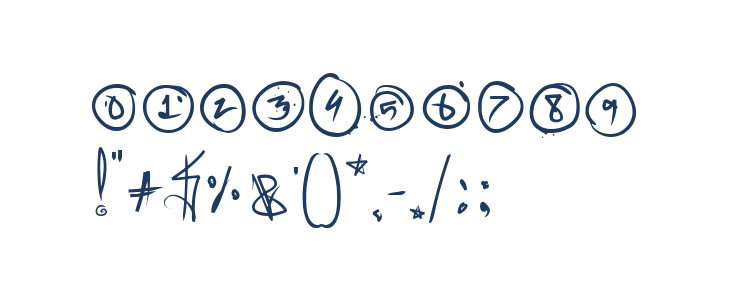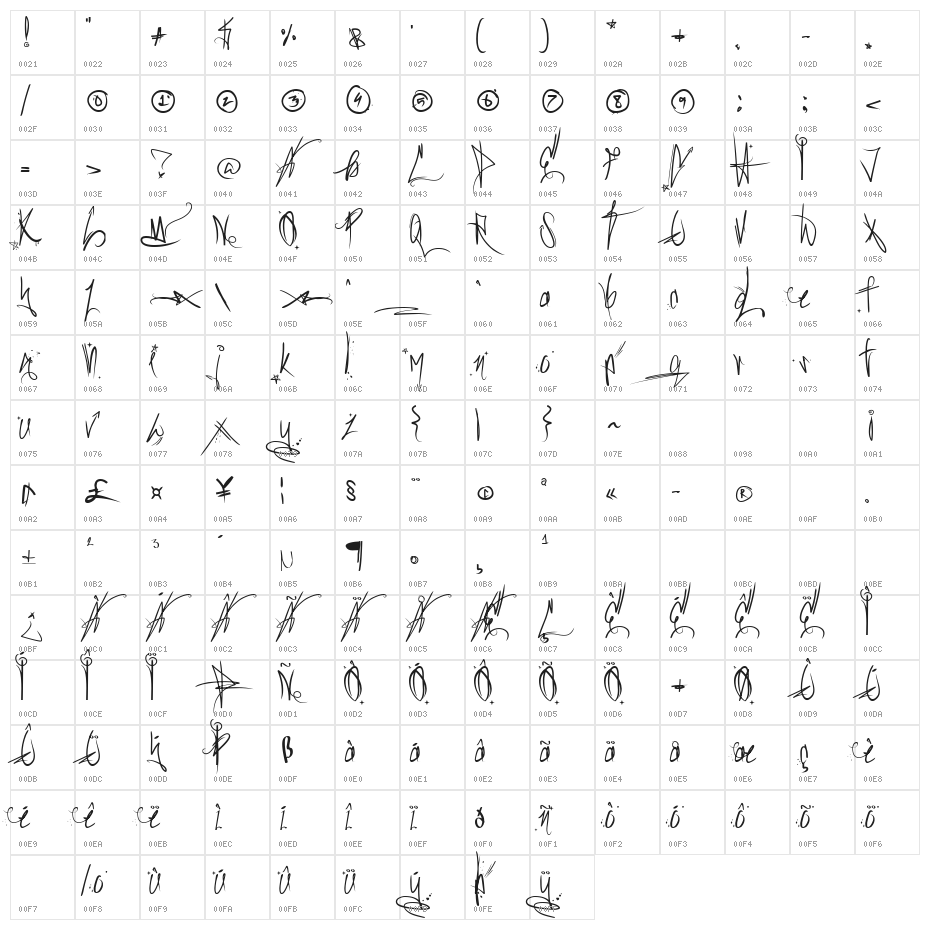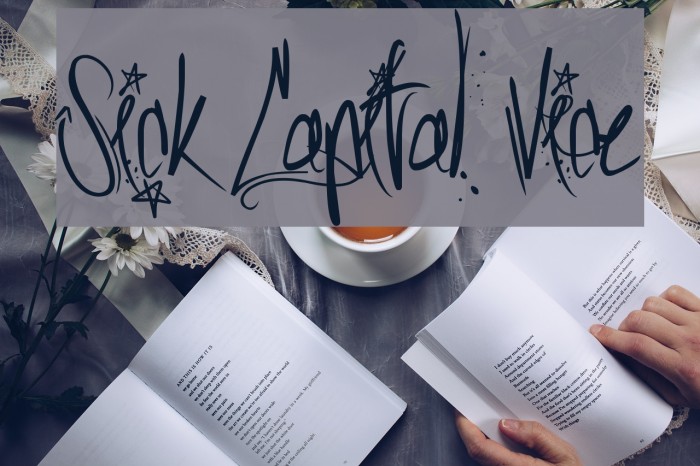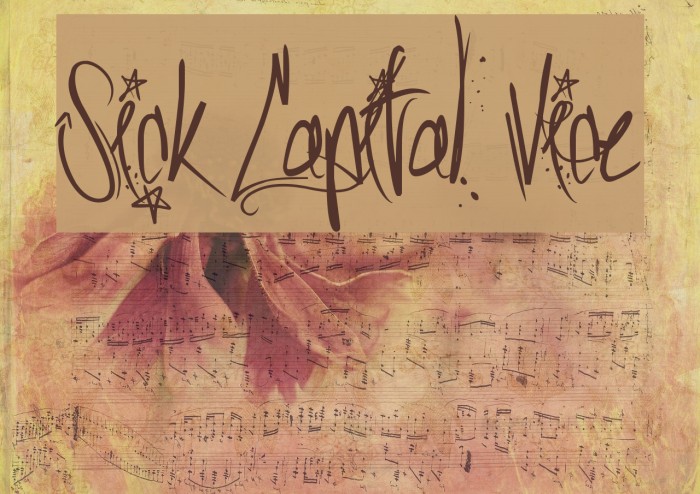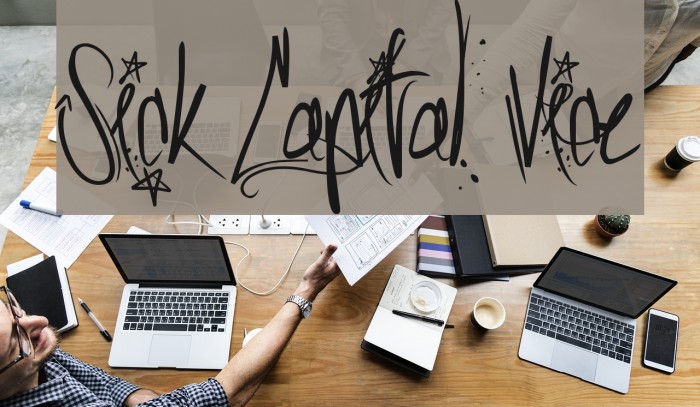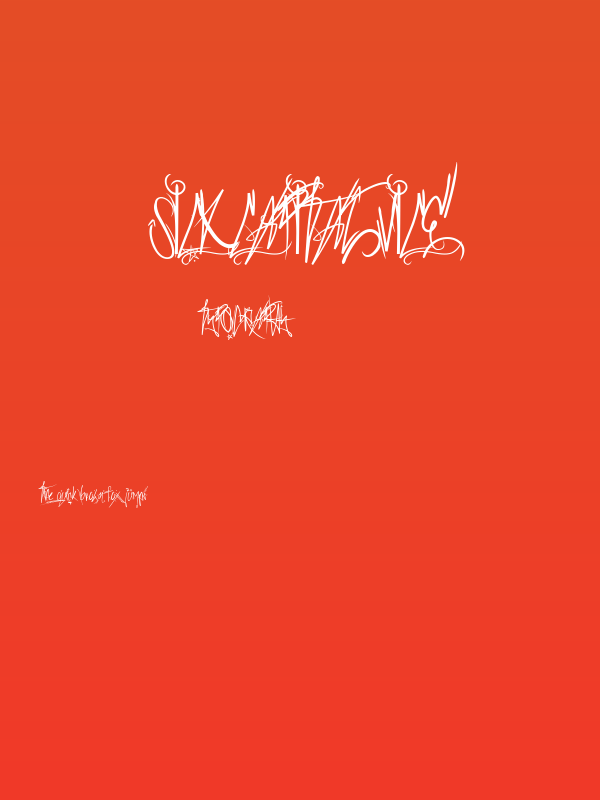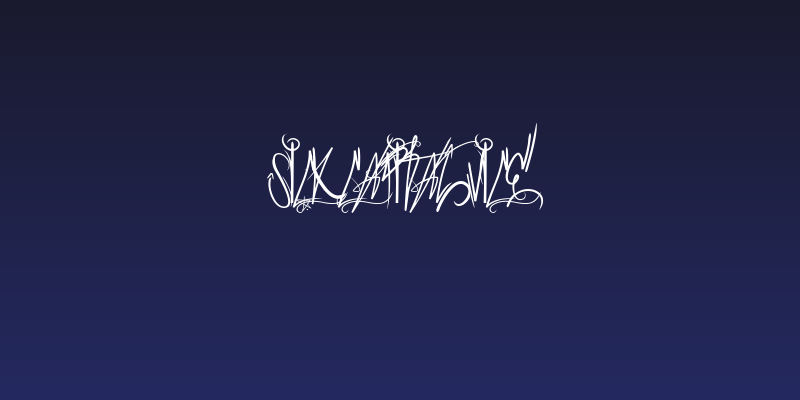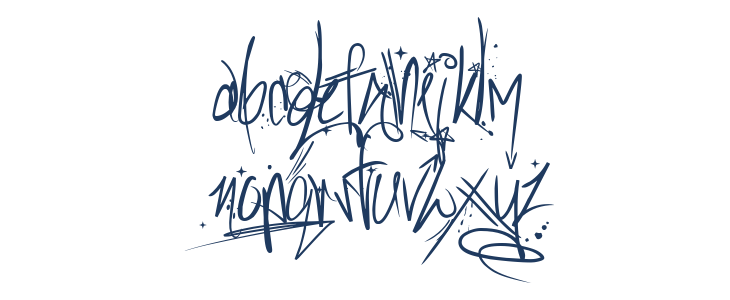
Sick Capital Vice Font
Sick Capital Vice Description
This font exudes an edgy, graffiti-inspired aesthetic, characterized by its dynamic and chaotic strokes. The letters are highly stylized with exaggerated curves and sharp angles, giving it a rebellious and urban feel. Each character is unique, with some incorporating stars and splatters, enhancing its street art vibe. The numbers are encased in circles, adding a playful touch. Special characters maintain the same energetic style, making this font ideal for projects that require a bold and unconventional look.
| Overall Style | Urban, Graffiti, Edgy |
| Use Case | Logos, Posters, Album covers |
| Proposed Projects | Perfect for street art projects, edgy branding, music album covers, and youth-oriented marketing materials. |